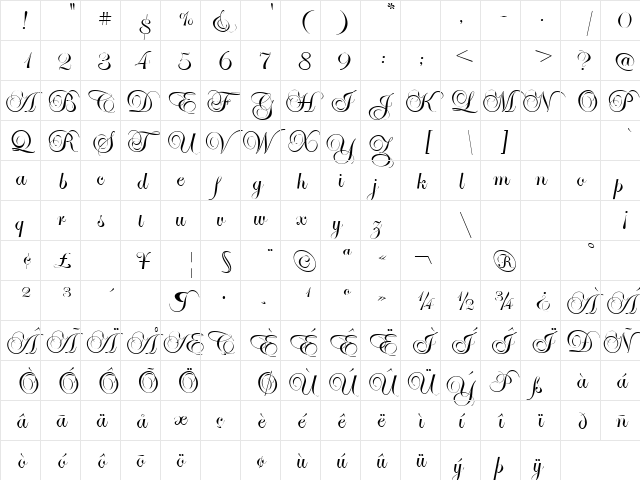
Edwardian Script "more vertical" Regular
Design Context for Edwardian Script "more vertical" Typeface
Edwardian Script "more vertical" flows with the natural rhythm of handwritten lettering, making it ideal for designs that call for warmth and personal expression.
Font Pairing: Combine Edwardian Script "more vertical" with a simple geometric sans for maximum contrast — the tension between flowing curves and clean structure is a classic typographic pairing.
Pro Tip: Pair Edwardian Script "more vertical" with a clean sans-serif for supporting text. The contrast between fluid script and geometric structure creates an elegant typographic hierarchy.